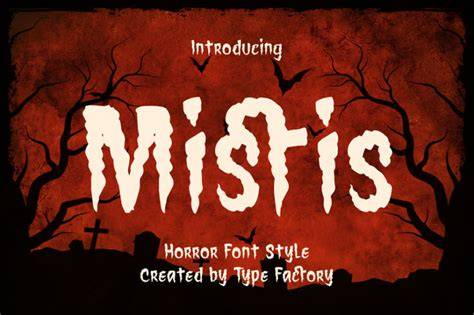
What Are Mystery Fonts?
Mystery fonts are a type of font that is usually characterized by its mysterious, cryptic, or spooky look. They often feature bold, angular lines and serifs, and often have an antique or retro feel. Mystery fonts can be used to create a unique design that stands out among other fonts, making them great for creating logos, titles, and other design projects. They are also popular for use in horror movies, comic books, and other media.
Mystery fonts are often quite distinct, and can be used to create a unique and memorable design. They typically feature a mix of angular lines, serifs, and bold typefaces. They often have an antique or vintage feel, and can be used to create a spooky or mysterious atmosphere. They are also popular for use in horror movies, comic books, and other media.
Using Mystery Fonts
Mystery fonts can be used in a variety of ways, depending on the desired effect. They are often used to create titles or logos that stand out from the crowd and make a statement. They can also be used for adding a spooky or menacing atmosphere to a design. Mystery fonts are also popular for use in horror movies, comic books, and other media.
When using mystery fonts, it is important to remember that they should be used sparingly. Too much of a good thing can quickly become overwhelming, and can make a design look cluttered and chaotic. It is best to use mystery fonts to create a unique and memorable design, rather than to overwhelm the viewer with too much of it.
When looking for mystery fonts, it is important to consider the overall feel of the font. Is it spooky, mysterious, or antique? Is it bold or subtle? Once you have a few fonts in mind, you can experiment with different combinations to find a font that is perfect for your design. With a little bit of experimentation, you can create a unique and memorable design with mystery fonts.